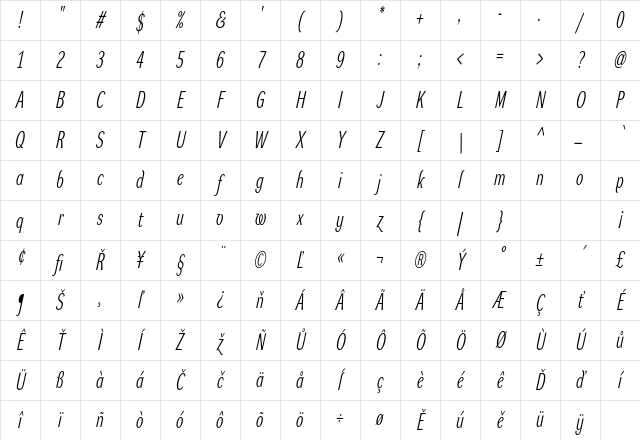
Dynamo LXC Regular
Dynamo LXC Family
Dynamo LXC Regular
Complete Dynamo LXC Regular glyph index. Displaying only characters natively supported by Dynamo LXC Regular font.
Design Context for Dynamo LXC
Dynamo LXC is a composed and adaptable typeface that performs quietly and consistently across a wide range of design contexts.